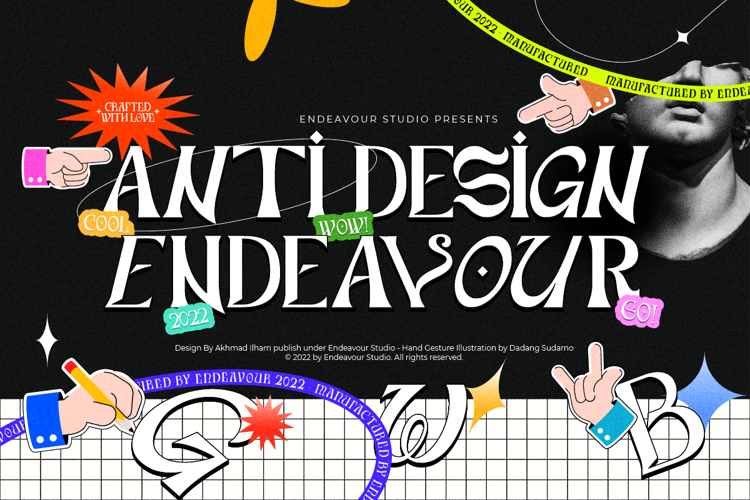
Anti Design Endeavour - Font
About Anti Design Endeavour - Font
The manifestation of how we define balance is Anti Design. We believe that balance should not be fixed, having the same size or worth. Balance can be achieved through contrast, colour, or anything else, and it can also be asymmetrical. By combining several types of fonts, such as italic, serif, script, and vintage, we may establish an asymmetrical balance while maintaining harmony.
Feature
189 Gyplhs
Uppercase, numbers, punctuation, Alternate
Multilingual support